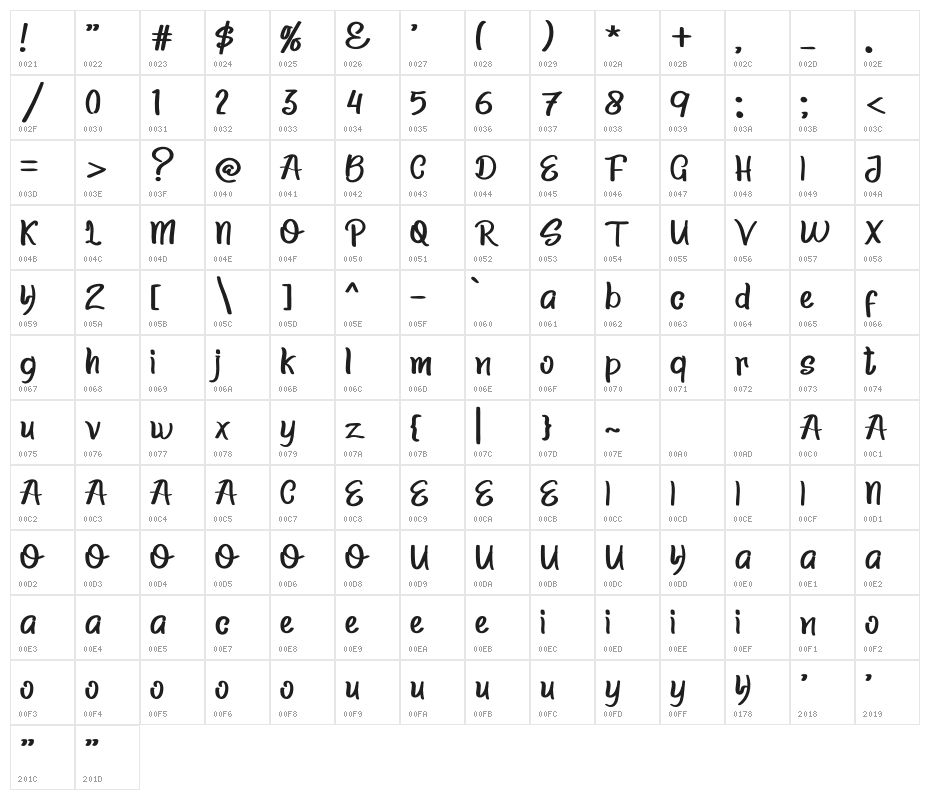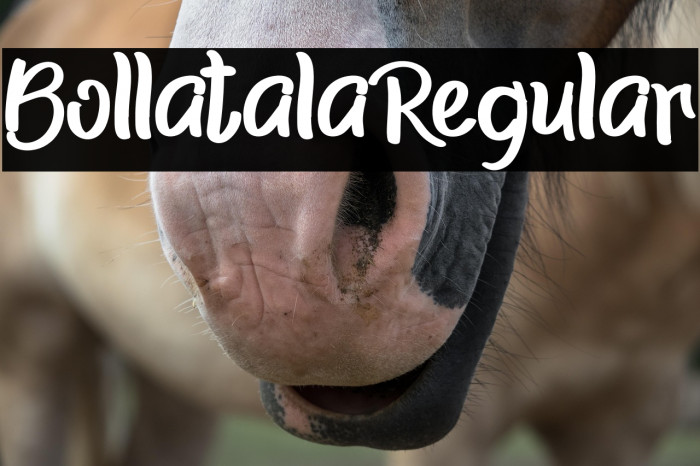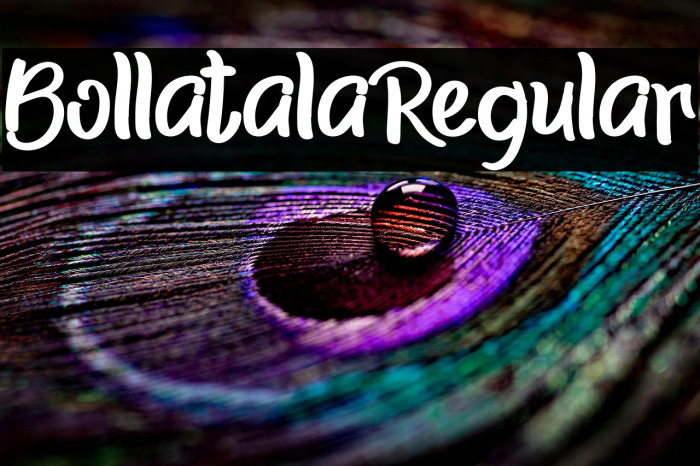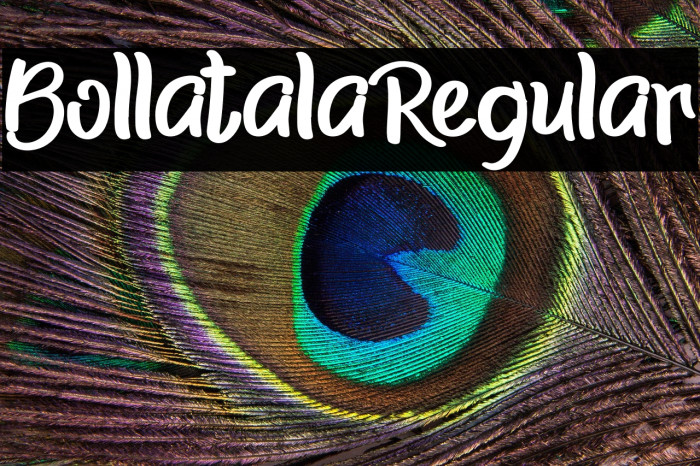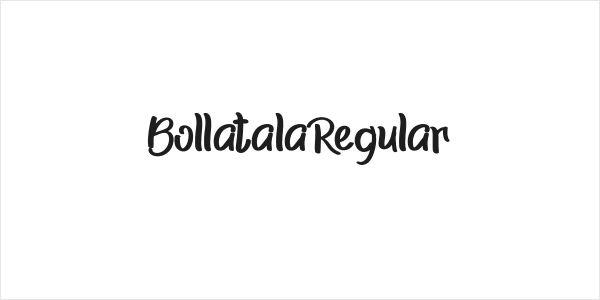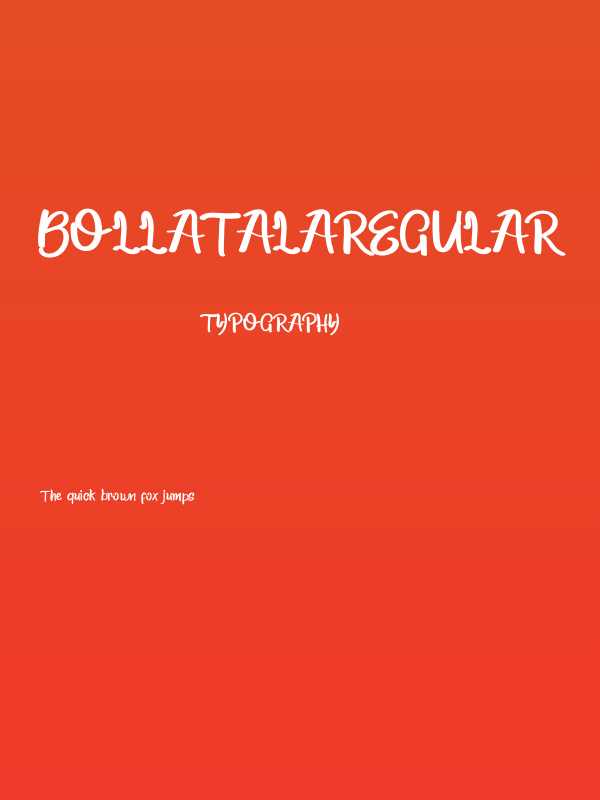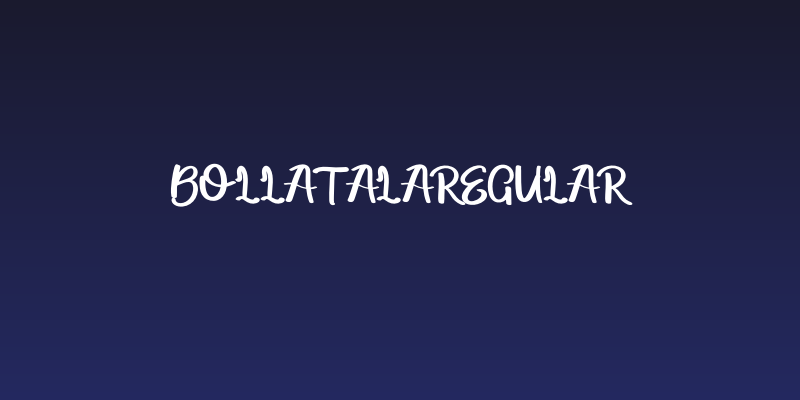
BollatalaRegular Font
BollatalaRegular Description
This font features a playful and dynamic script style, characterized by its bold and flowing letterforms. The uppercase letters are slightly more structured, while the lowercase letters exhibit a more casual and handwritten feel. The strokes are thick and consistent, providing a strong visual impact. The numbers and special characters maintain the same energetic style, making them cohesive with the alphabet. This font is ideal for projects that require a lively and informal touch, such as invitations, posters, or branding materials. Its unique style ensures that it stands out in any design context.
| Proposed Projects | Ideal for invitations, posters, branding, and any project needing a lively touch. |